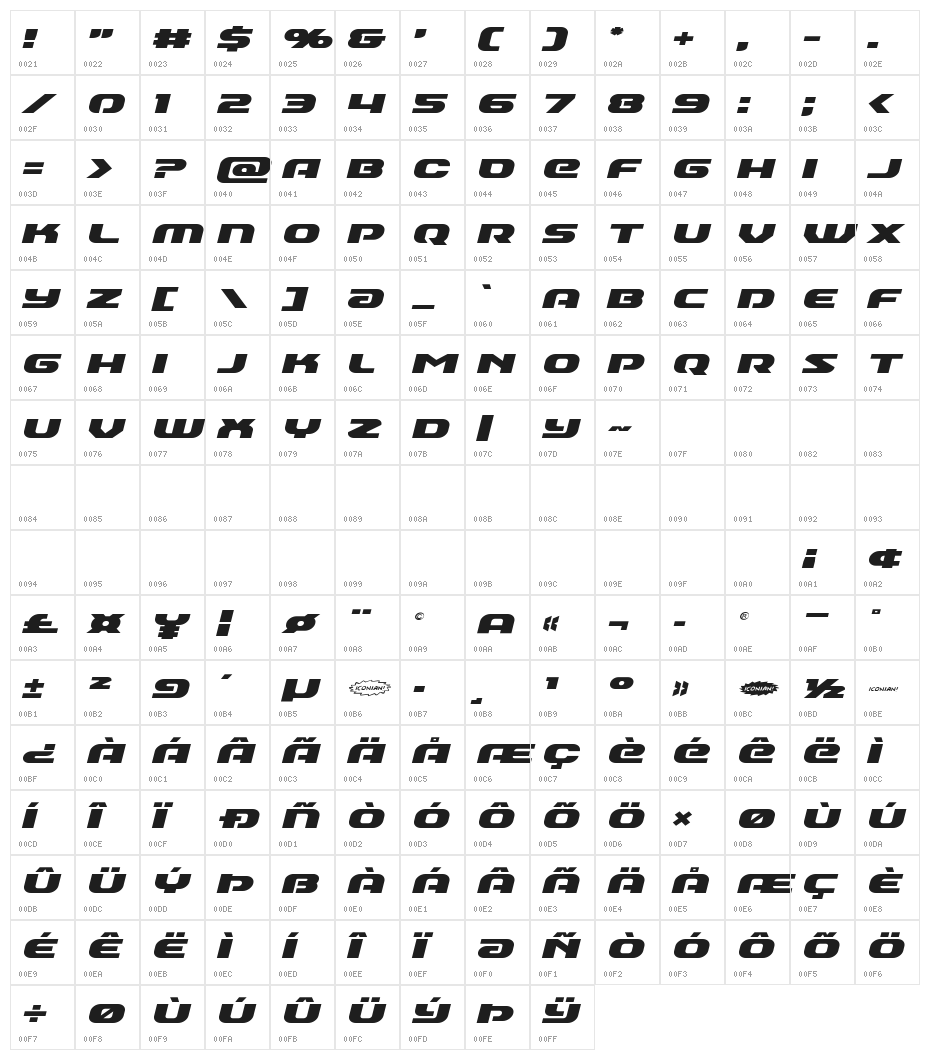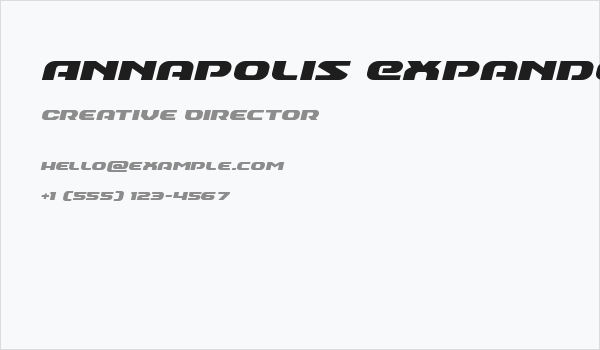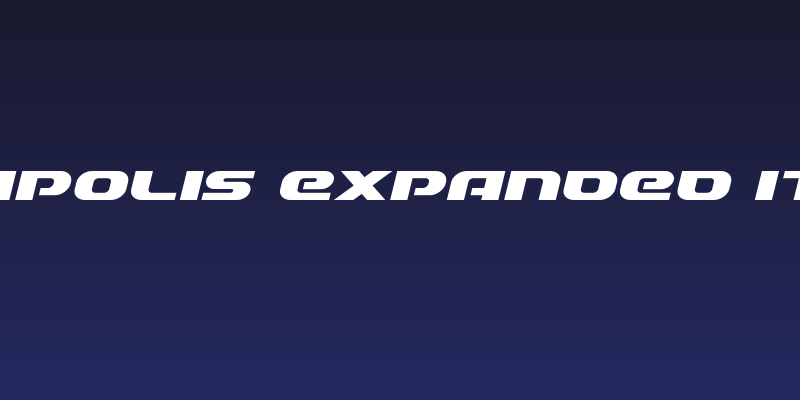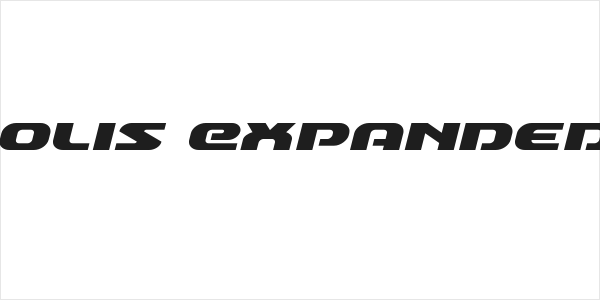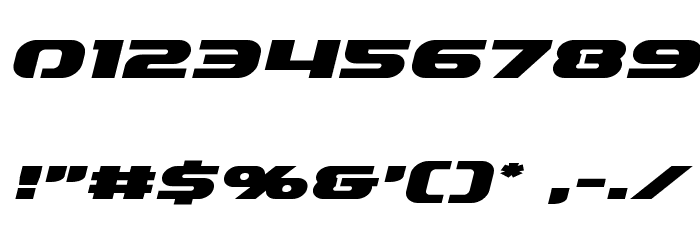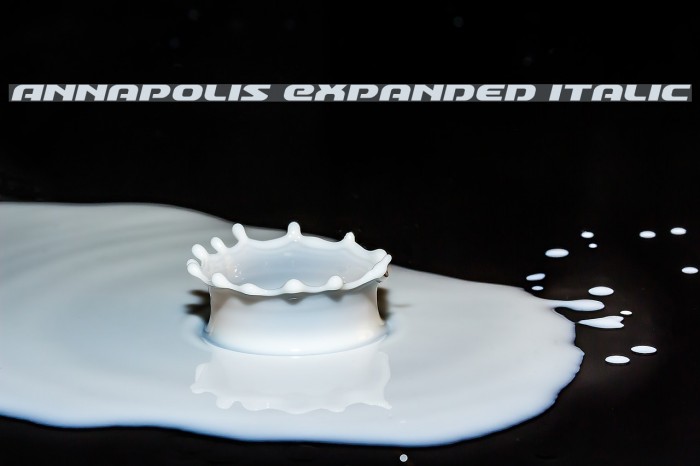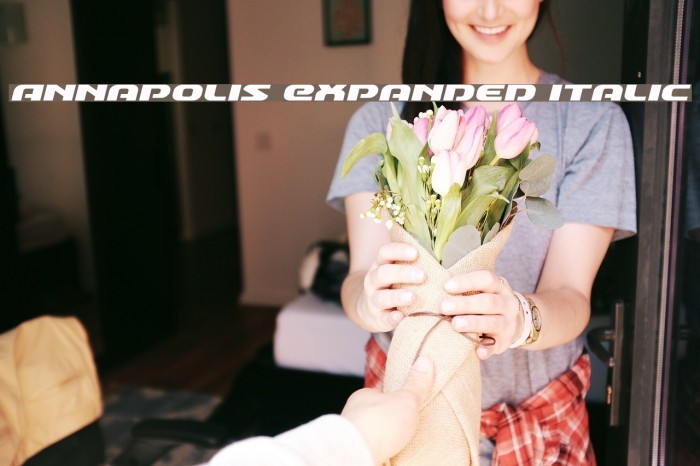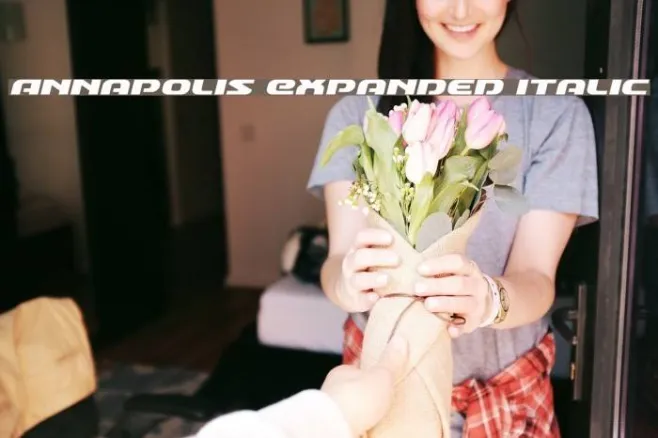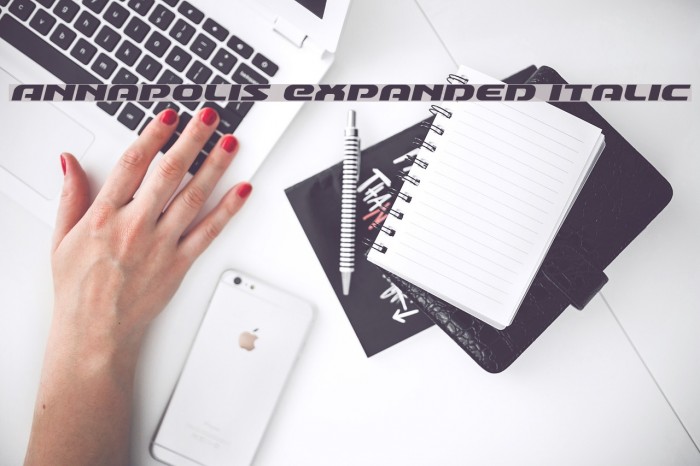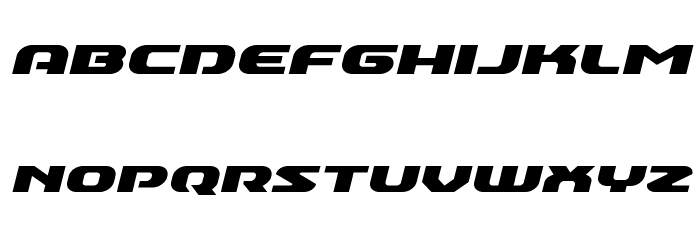
Annapolis Expanded Italic Font
Annapolis Expanded Italic Description
This font features a bold, italicized style with expanded width, giving it a dynamic and modern appearance. The characters are designed with a slight slant, enhancing the sense of movement and energy. The strokes are thick and consistent, providing a strong visual impact. The overall design is sleek and futuristic, making it suitable for projects that require a bold statement. The spacing between characters is normal, ensuring readability while maintaining its distinctive style. The font includes a full set of uppercase and lowercase letters, numerals, and a variety of special characters, making it versatile for various design needs.
| Proposed Projects | Ideal for branding, sports team logos, posters, and any design requiring a strong, modern look. |